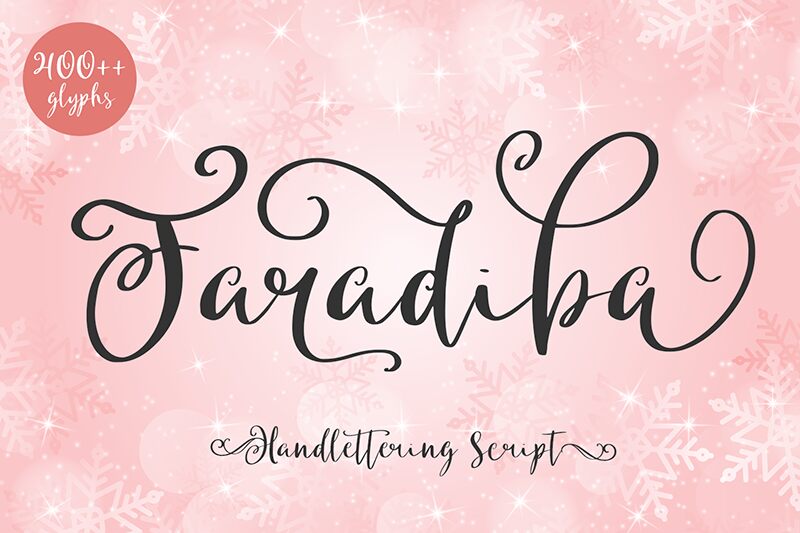
Faradiba
Introducing Faradiba, an elegant calligraphy font designed by Abo Daniel in 2020. It has a light weight and delicate strokes that will add a touch of sophistication to any project. Perfect for creating invitations, logos, quotes, or even business cards - Faradiba's classic look will elevate your design. Let your creativity flow and see what you can do with this stylish font!
FARADIBA
- crafty calligraphy -